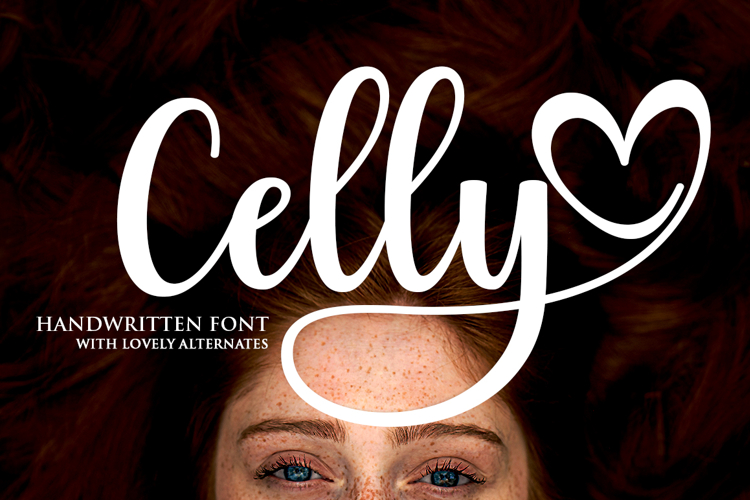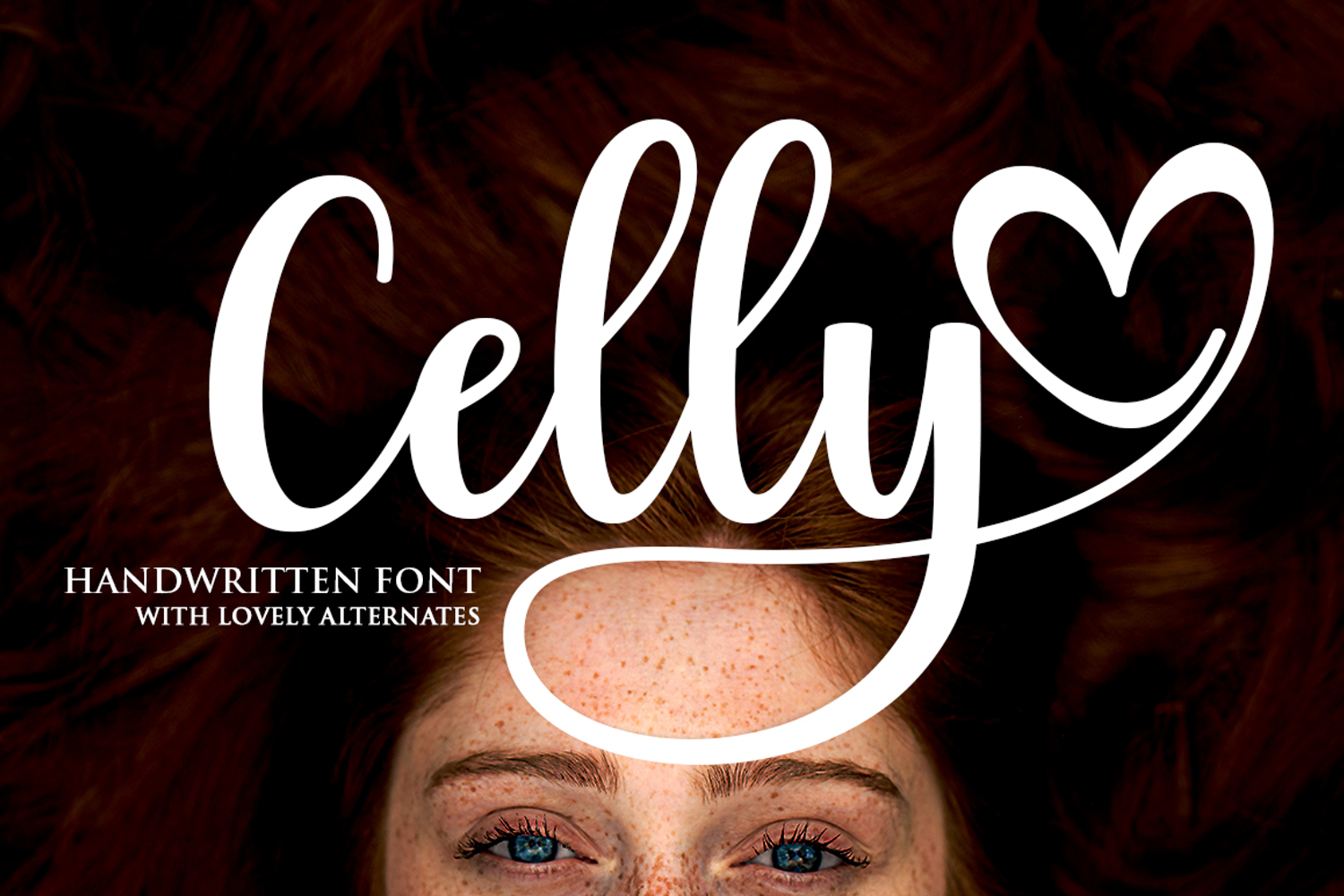
Introducing Celly, an enchantingly serene handwriting font that elegantly dances across the page. Bathed in sweetness and draped in a flowing cursive style, Celly is a versatile tool, ready to breathe life into an array of design concepts. Each stroke brings a jubilant, affectionate touch to your projects, imbuing them with an air of casual elegance and playful sophistication. Ideal for enhancing your brand identity, creating an extraordinary logo, enchanting wedding invitations, heartwarming greeting cards, stunning fashion lookbooks, or impactful marketing promotions. With Celly, the fancy yet relaxed charm of your design will turn heads at every corner.